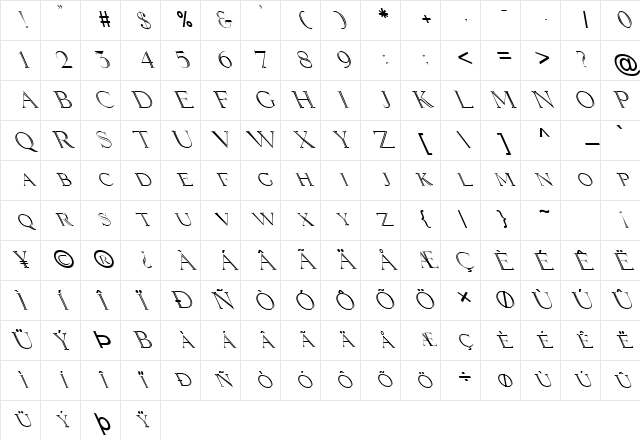
FZ OUTLINE 2 LEFTY Normal
Design Context for FZ OUTLINE 2 LEFTY
FZ OUTLINE 2 LEFTY is built around its visual character rather than neutral utility - its distinctive forms are designed to make an impression at display sizes.
Font Pairing: Pair with a clean neutral sans-serif for body copy to let FZ OUTLINE 2 LEFTY's character lead without overwhelming the composition.
Pro Tip: Use FZ OUTLINE 2 LEFTY exclusively at display sizes - it was designed to be seen, not read at length. Let a neutral companion handle body copy.